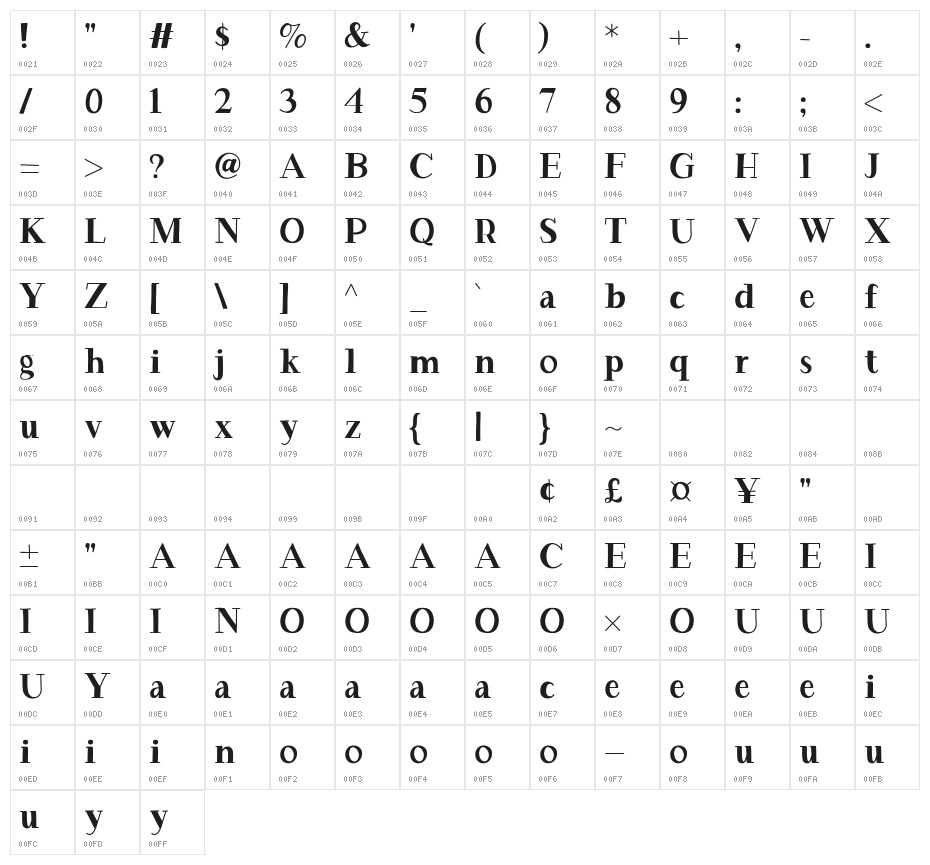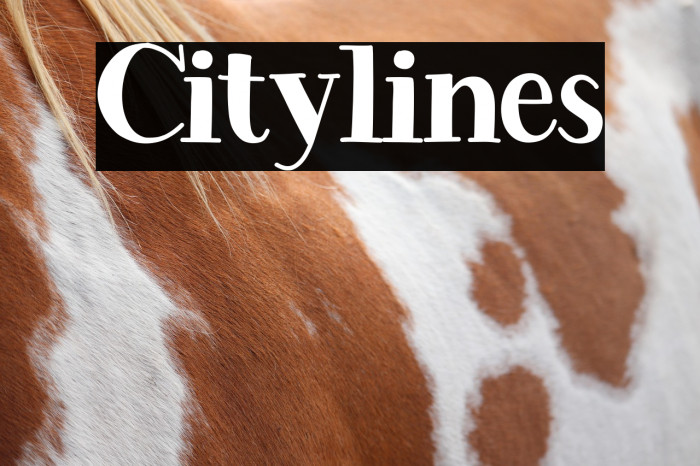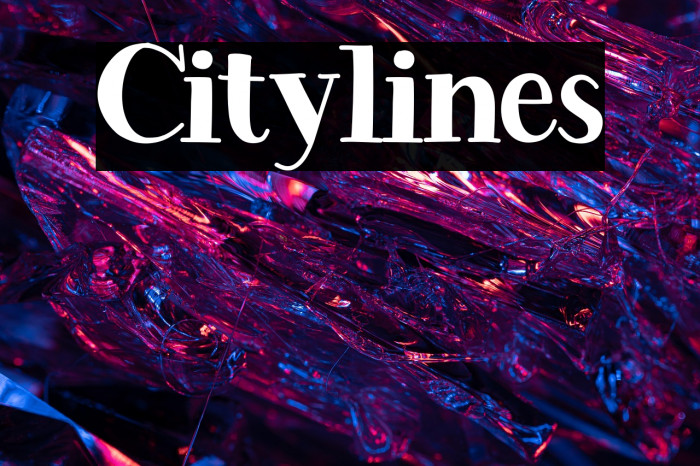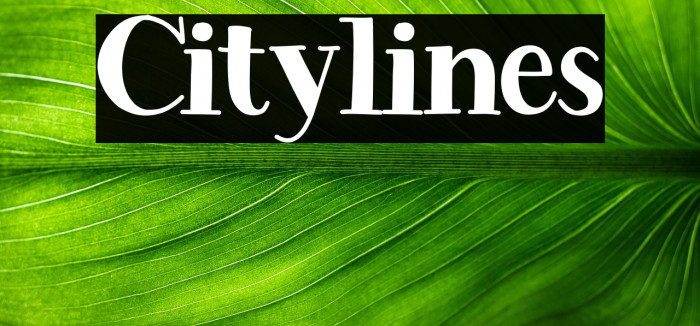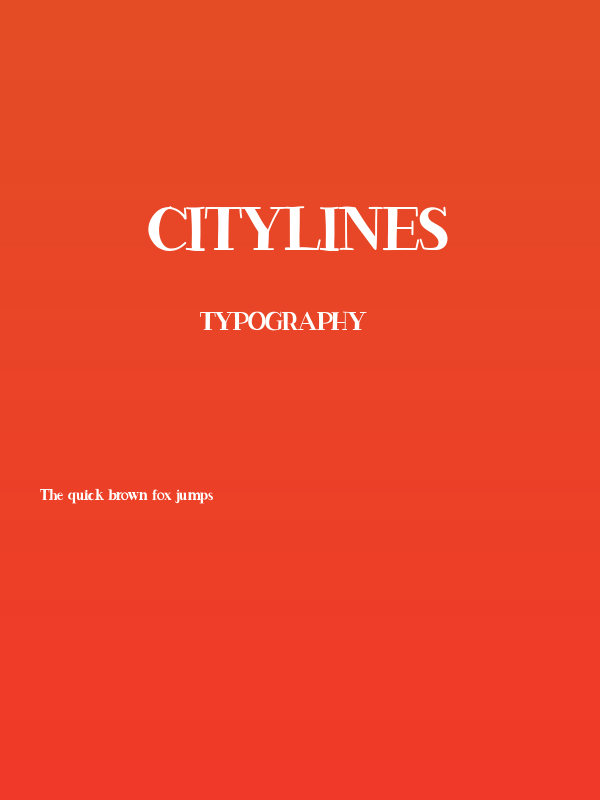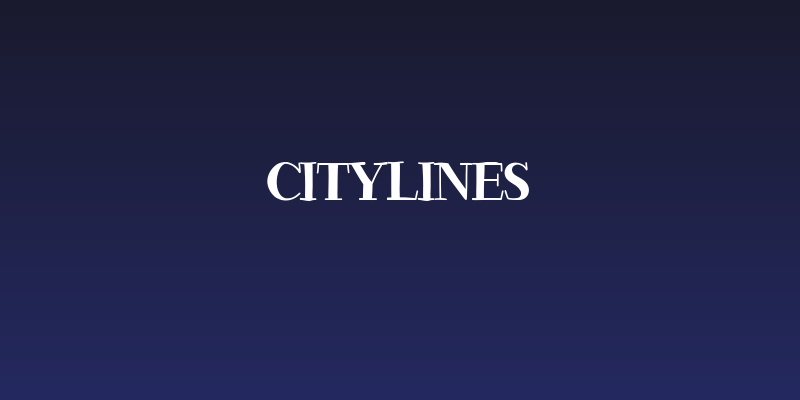
Citylines Font
Citylines Description
This font features a classic serif style with a modern twist, characterized by its elegant and slightly exaggerated serifs. The uppercase letters are tall and commanding, while the lowercase letters maintain a consistent and harmonious flow. The numerals are distinct and easily readable, complementing the overall design. Special characters are crafted with attention to detail, ensuring they blend seamlessly with the alphabetic characters. The font's contrast in stroke thickness adds a dynamic quality, making it suitable for both traditional and contemporary applications.
| Overall Style | Classic |
| Use Case | Headlines, Body text, Logos |
| Proposed Projects | Ideal for editorial design, book covers, branding projects, and elegant invitations. |